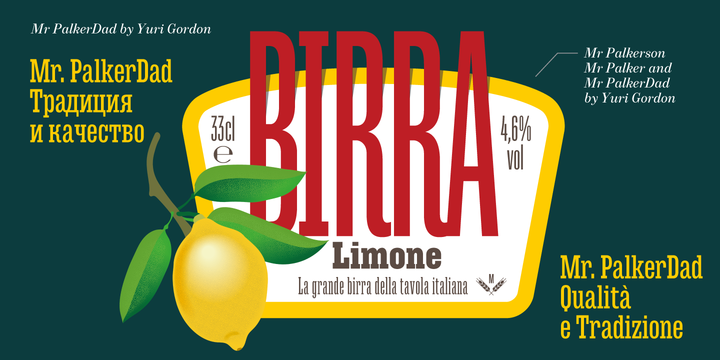
Mr Palker Dad
Mr Palker Dad Font Family
Mr Palker Dad — has appeared in a natural evolution of the Palker-Palkerson family. Its closest relative – grotesque Mr Palker Dadson. This generation is more stout than the previous one. One may even be brave enough to use them for composing small texts. Notably Mr Parker Dad has become one of the frequently sold typefaces on the «Peterburg. The city speaks» map as it is highly readable while remaining extremely tight. Mr Parker Dad has all the features of P&P’s family.